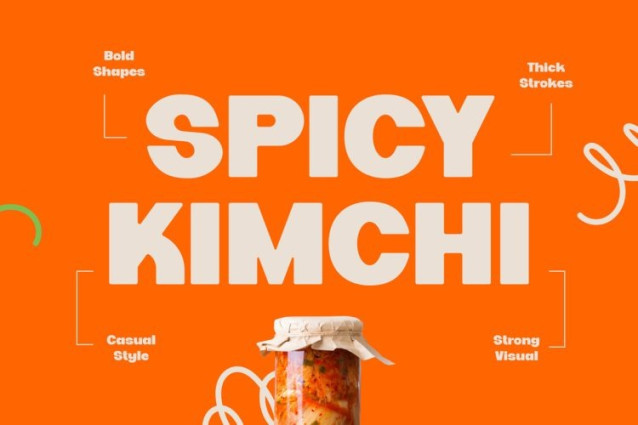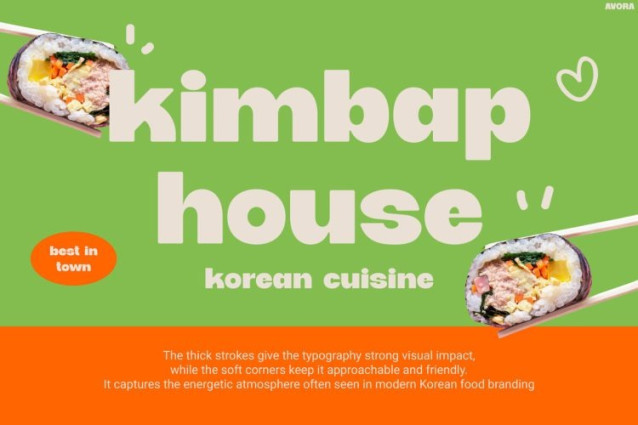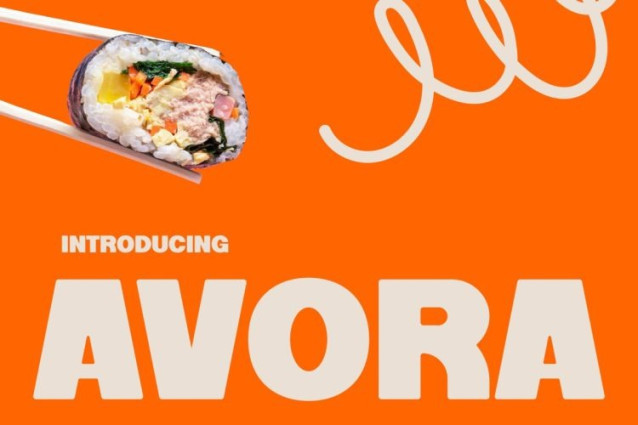
Avora Font
Avora Font a fresh and eye-catching display style inspired by modern Korean food branding and trendy urban aesthetics. Furthermore, the font combines chunky bold letterforms with soft rounded details, so every design feels warm, playful, and highly inviting. Because of its clean structure and energetic personality, Avora instantly creates visuals that look modern, friendly, and premium at the same time. In addition, the bold typography stands out beautifully on packaging, social media posts, restaurant branding, and promotional campaigns. As a result, your content feels more vibrant, memorable, and visually delicious.
Moreover, Avora balances fun character with strong readability, which makes it perfect for bold headlines and creative layouts. Whether you are building a food brand, designing Instagram content, or creating lifestyle promotions, this font helps your visuals feel more dynamic and engaging. Therefore, Avora becomes an excellent choice for creators who want typography that looks trendy, clean, and full of personality.